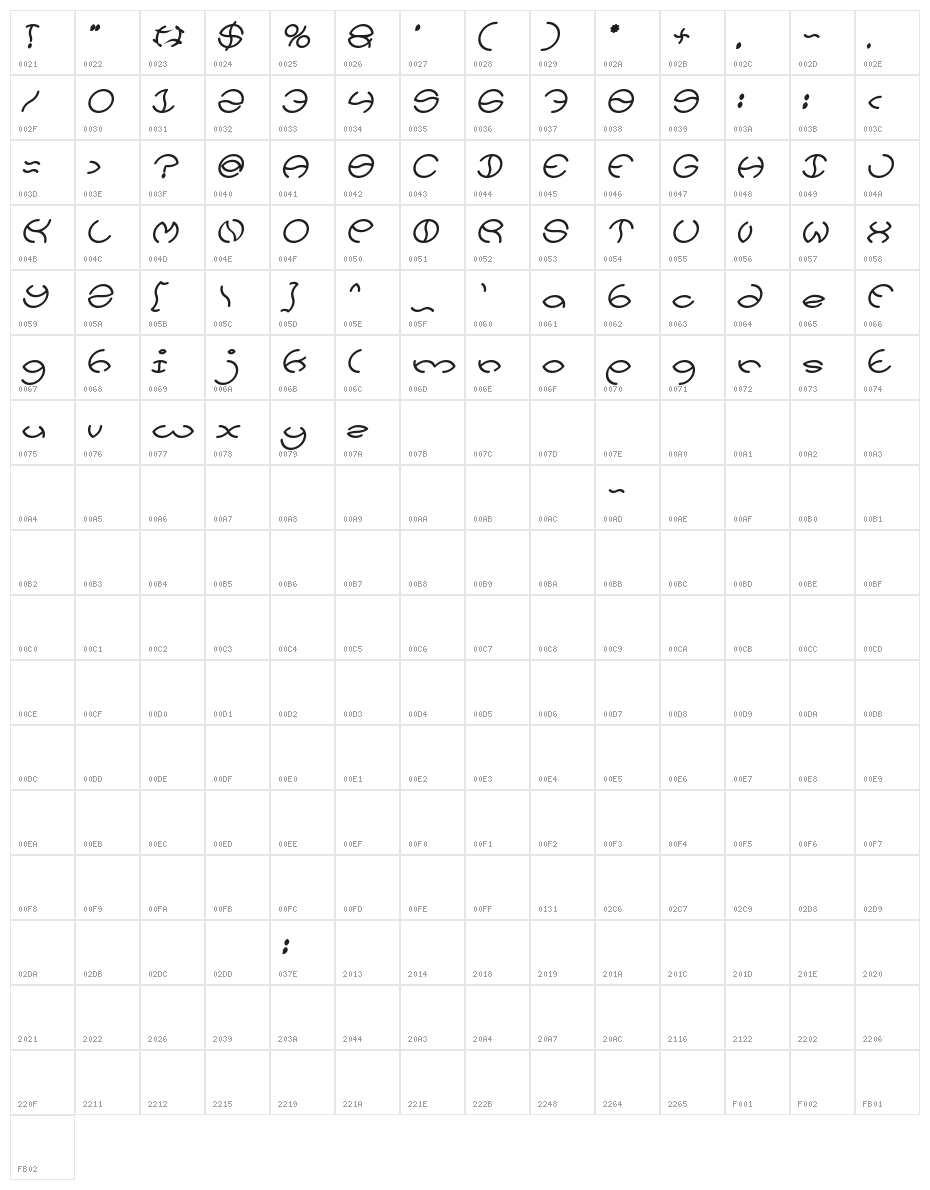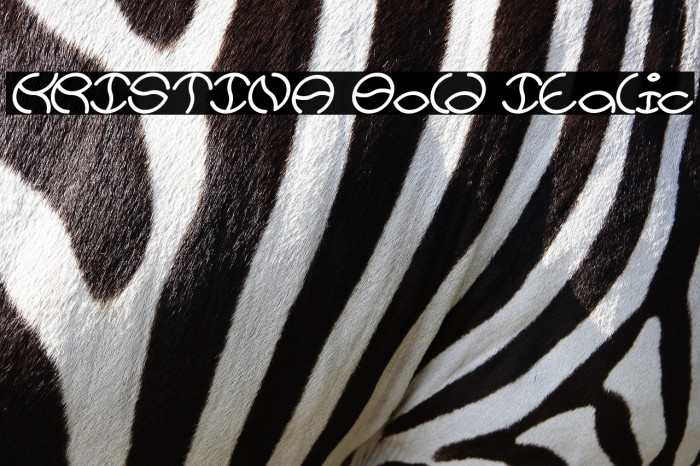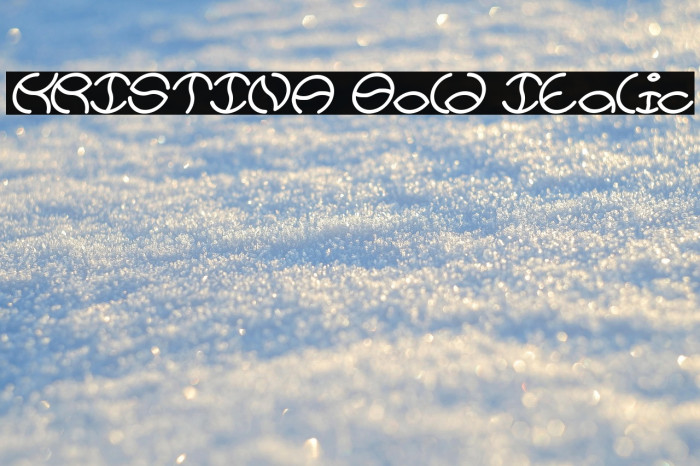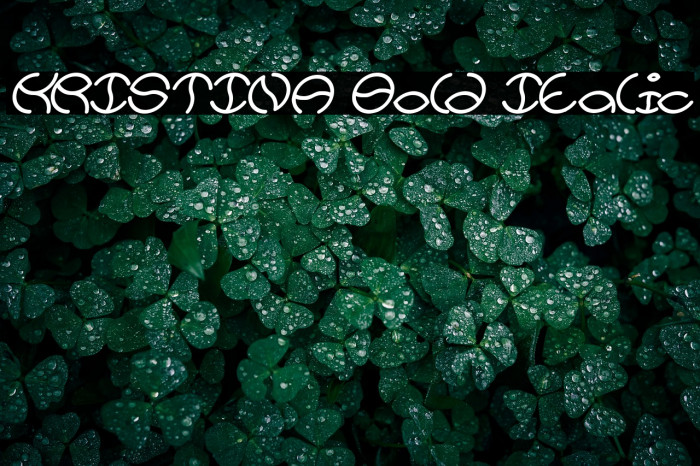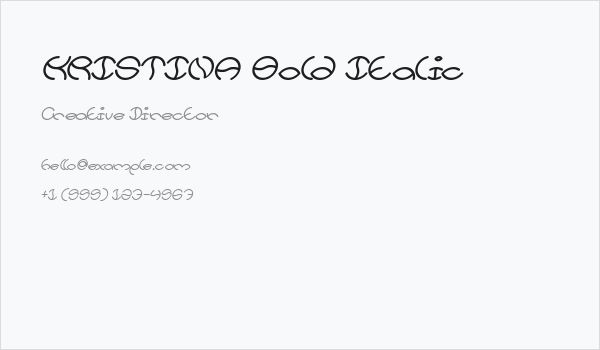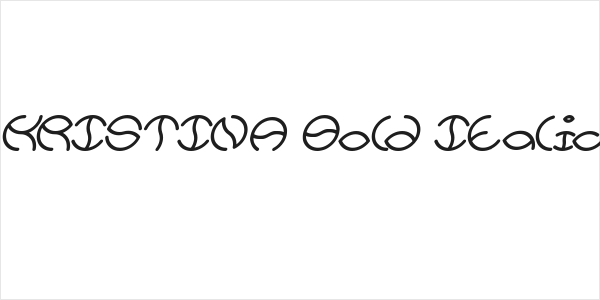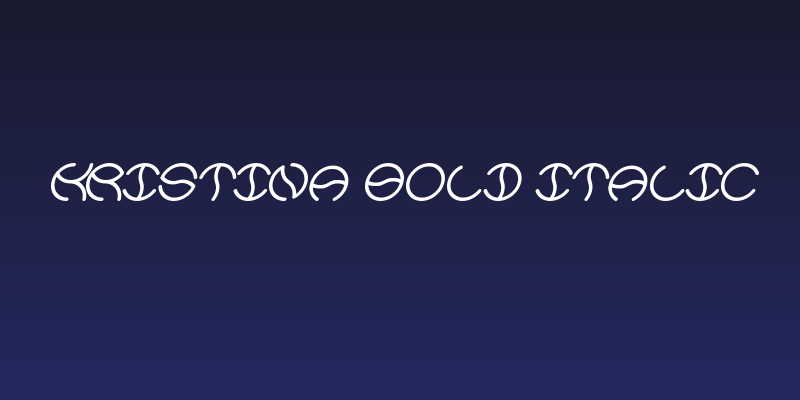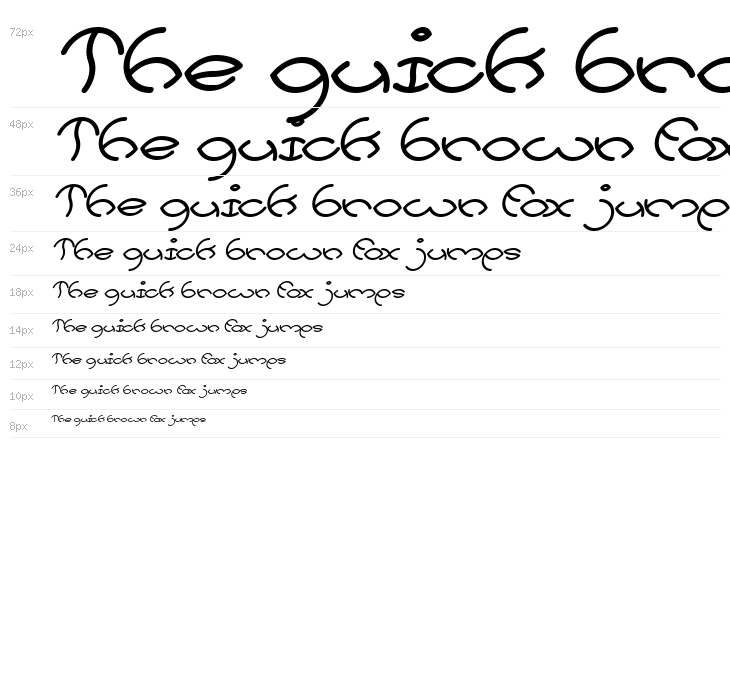
KRISTINA Bold Italic Font
KRISTINA Bold Italic Description
This font features a unique, decorative style with a bold and italicized appearance. The characters are crafted with a playful, rounded design, incorporating loops and curves that give it a whimsical and artistic flair. The uppercase and lowercase letters maintain a consistent style, with distinctive embellishments that make each character stand out. The numbers and special characters follow the same design principles, ensuring a cohesive look across all glyphs. This font's boldness and creativity make it suitable for eye-catching designs.
| Use Case | Logos, Headlines, Artistic designs |
| Proposed Projects | Ideal for creative projects such as posters, invitations, branding, and artistic logos. |